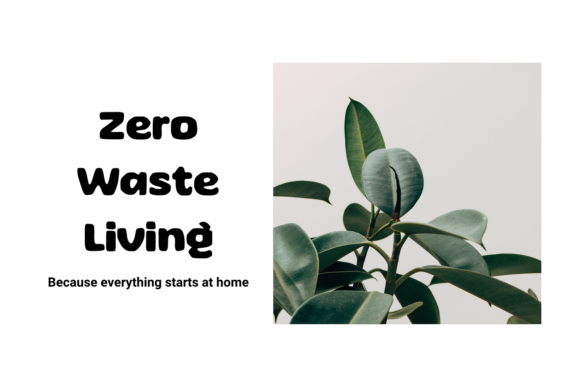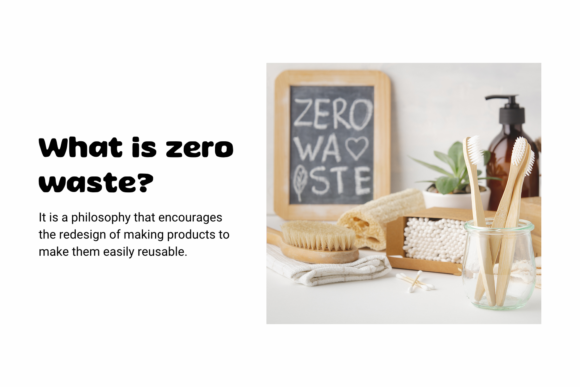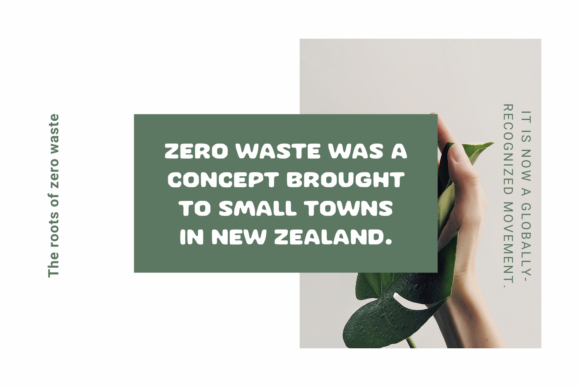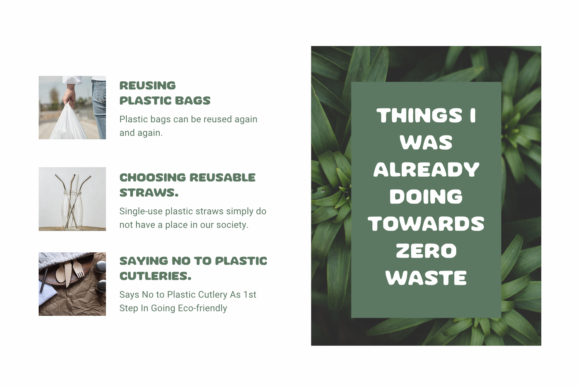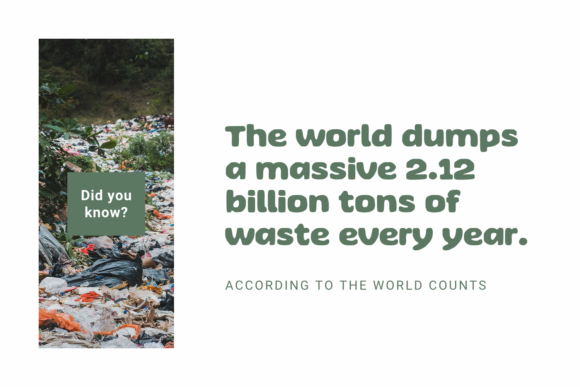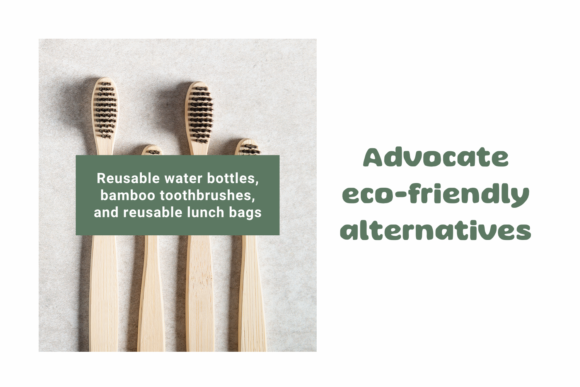
Introducing Argufy Font: The Ultimate Vintage Display Font for Designers and Crafters
Are you tired of using the same old fonts in your designs? Look no further! Argufy Font is here to revolutionize your creative projects with its unique, vintage-styled, and organic display font. This stunning font is perfect for food menus, posters, flyers, and prints, and is sure to add a touch of elegance and sophistication to any design.
What Makes Argufy Font So Special?
Argufy Font is a one-of-a-kind font that boasts a distinctive vintage style, reminiscent of classic posters and advertisements from the early 20th century. Its organic feel and rough texture give it a charming, handcrafted look that’s sure to capture the attention of your audience. Whether you’re designing a menu for a trendy cafe, a poster for a music festival, or a flyer for a craft fair, Argufy Font is the perfect choice.
One of the best things about Argufy Font is its versatility. Its unique style and charm make it suitable for a wide range of design projects, from:
- Food menus and restaurant branding
- Posters and flyers for events and promotions
- Print materials such as brochures and catalogs
- Packaging design for food and craft products
- Social media graphics and digital marketing materials
With Argufy Font, the possibilities are endless! You can use it to create stunning designs that showcase your creativity and style.
Key Features of Argufy Font
Here are some of the key features that make Argufy Font a must-have for designers and crafters:
- Vintage style: Argufy Font boasts a unique, vintage-styled design that’s reminiscent of classic posters and advertisements.
- Organic feel: The font’s organic feel and rough texture give it a charming, handcrafted look.
- Display font: Argufy Font is a display font, perfect for headlines, titles, and other large-format text.
Why Choose Argufy Font?
With so many fonts available, why choose Argufy Font? Here are just a few reasons:
- Unique style: Argufy Font has a unique style that’s sure to set your designs apart from the crowd.
- High-quality design: The font is designed to high standards, ensuring that it looks great in any design.
- Versatility: Argufy Font is suitable for a wide range of design projects, making it a great addition to any designer’s toolkit.
Get Ready to Elevate Your Designs with Argufy Font
If you’re looking for a font that will add a touch of elegance and sophistication to your designs, look no further than Argufy Font. With its unique vintage style, organic feel, and versatility, this font is sure to become a favorite among designers and crafters. So why wait? Download Argufy Font today and start creating stunning designs that showcase your creativity and style!
In conclusion, Argufy Font is a must-have for designers and crafters looking to add a touch of vintage charm to their designs. With its unique style, organic feel, and versatility, this font is perfect for a wide range of design projects. Whether you’re designing a menu, poster, flyer, or print material, Argufy Font is sure to impress. So why wait? Get your hands on Argufy Font today and start creating stunning designs that showcase your creativity and style!